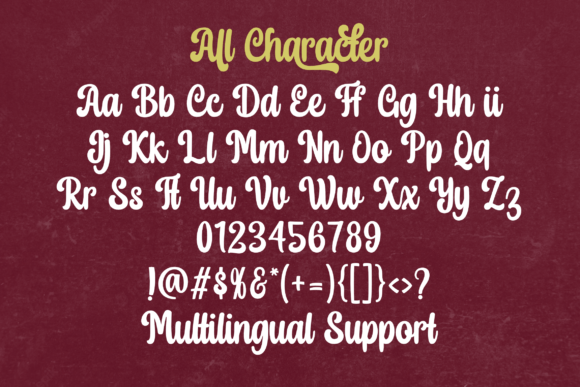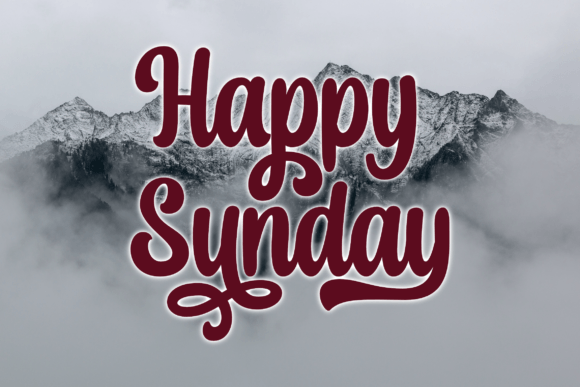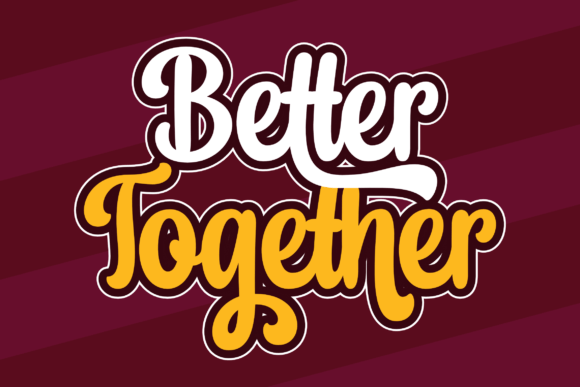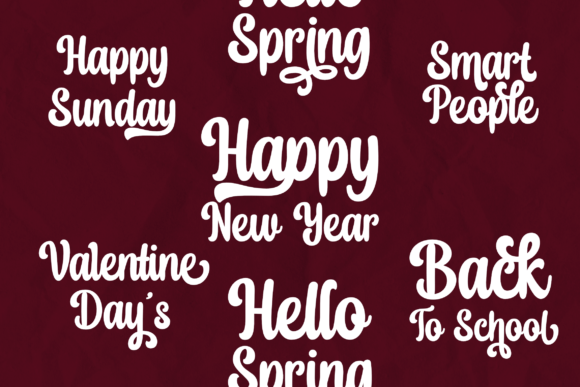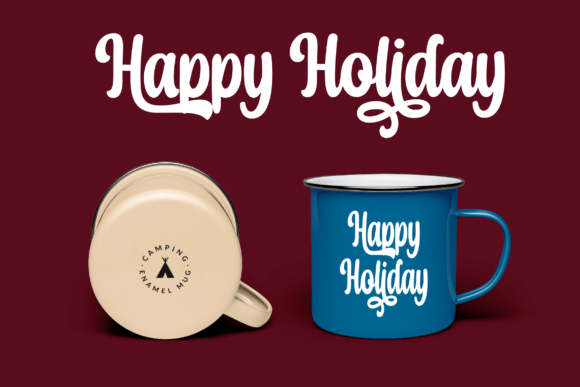
Introducing Christmas Okinawa Font: A Beautiful and Romantic Handwritten Font
Are you looking for a font that can add a touch of elegance and romance to your designs? Look no further than the Christmas Okinawa Font. This stunning handwritten font is perfect for creating beautiful and eye-catching designs for various occasions, including weddings, holidays, and special events.
What Makes Christmas Okinawa Font So Special?
Christmas Okinawa Font is a beautiful and romantic handwritten font that looks amazing on thank you cards, quotes, wedding invitations, greeting cards, business cards, logos, and any other design that requires a touch of handwriting. The font’s elegant and flowing script makes it perfect for adding a personal touch to your designs.
Key Features of Christmas Okinawa Font
• Beautiful Handwritten Script: Christmas Okinawa Font features a stunning handwritten script that is both elegant and romantic.
• PUA Encoded: The font is PUA encoded, which means you can access all the glyphs and swashes easily. This makes it simple to customize your designs and add a personal touch.
• Versatile: The font is perfect for a wide range of designs, including wedding invitations, greeting cards, business cards, logos, and more.
Christmas Okinawa Font is perfect for designers and crafters who want to add a touch of elegance and romance to their designs. Whether you’re creating wedding invitations, greeting cards, or other designs, this font is sure to impress. The font’s versatility and ease of use make it perfect for a wide range of projects, from digital designs to print-on-demand products.
Tips for Using Christmas Okinawa Font
• Pair it with Other Fonts: Christmas Okinawa Font pairs well with other fonts, making it easy to create stunning designs. Try pairing it with a bold font for a contrasting look or with a similar script font for a cohesive look.
• Experiment with Swashes: The font’s PUA encoding makes it easy to access swashes and glyphs. Experiment with different swashes to add a personal touch to your designs.
• Use it for Digital Designs: Christmas Okinawa Font is perfect for digital designs, including social media graphics, blog posts, and more.
Font Name Christmas Okinawa Font
Author Lettersweet
Christmas Okinawa Font is a beautiful and romantic handwritten font that is perfect for designers and crafters who want to add a touch of elegance and romance to their designs. With its elegant script, PUA encoding, and versatility, this font is sure to become a favorite in your design arsenal. So why wait? Download Christmas Okinawa Font today and start creating stunning designs that will leave a lasting impression.
Where to Use Christmas Okinawa Font
• Wedding Invitations: Use Christmas Okinawa Font to create stunning wedding invitations that will set the tone for the big day.
• Greeting Cards: The font is perfect for creating beautiful greeting cards for special occasions, including holidays and birthdays.
• Business Cards: Use Christmas Okinawa Font to create professional and elegant business cards that will make a lasting impression.
• Logos: The font is perfect for creating logos that require a touch of elegance and sophistication.